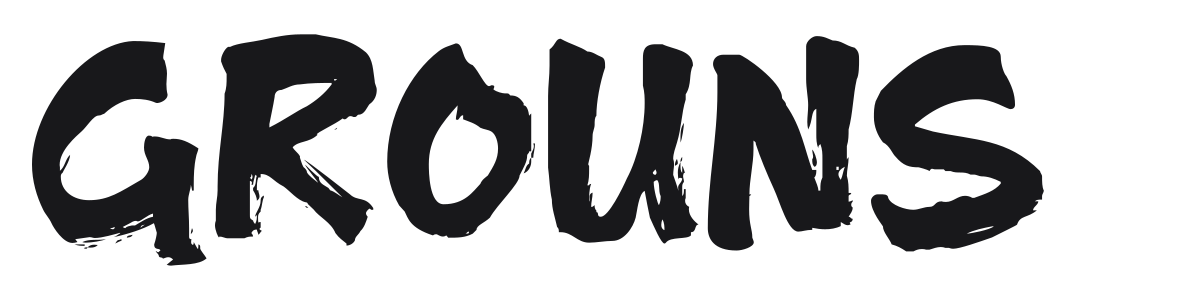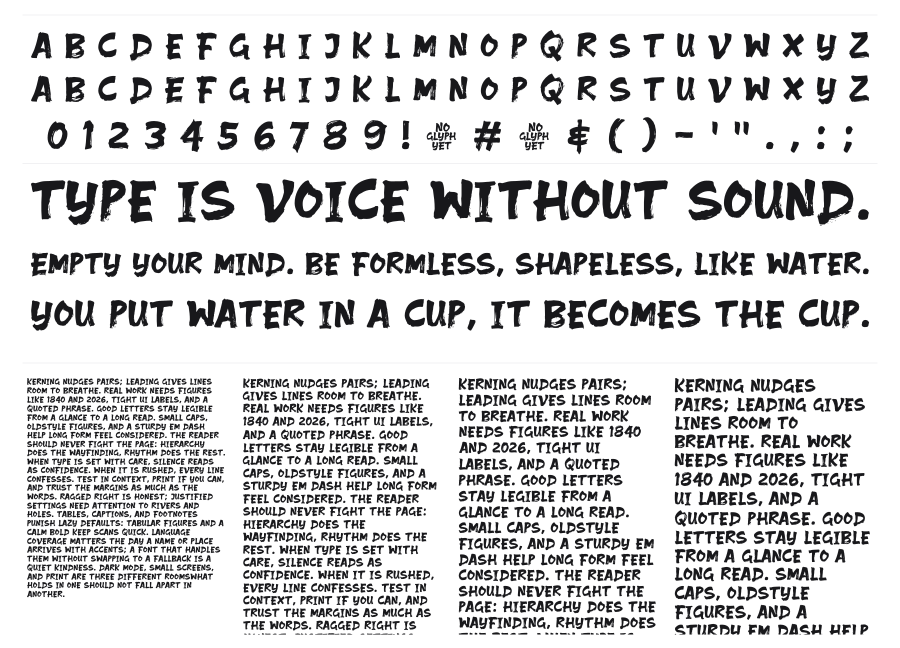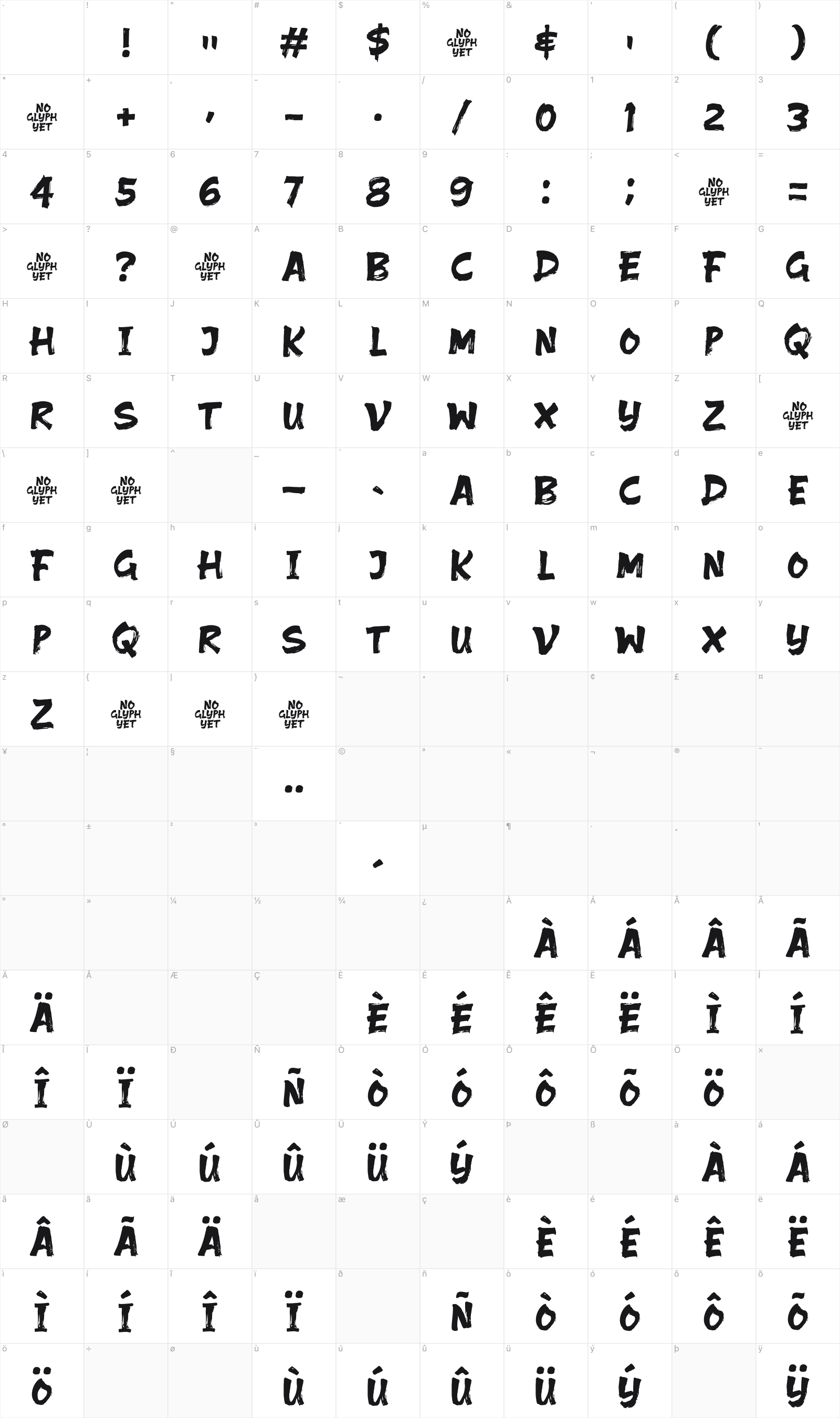
Grouns
Grouns is a heavy dry-brush font with raw, bristle-textured strokes and a loose, spontaneous energy. The irregular ink variation and ragged edges give it an authentic hand-lettered quality that works hard at headline sizes. It draws naturally toward sports, streetwear, and anything that needs a bold, gritty presence.